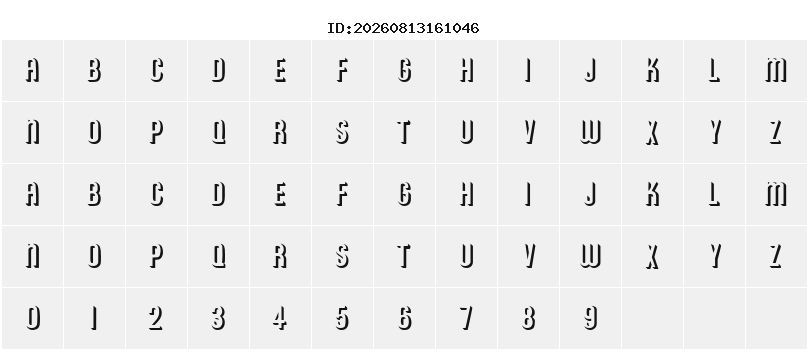
RONALD Preview
• Font Name: RONALD
• Full Font Name: RONALD Regular
About RONALD.ttf
RONALD.ttf is a modern, elegant sans-serif font designed for ultimate readability and visual harmony. Perfect for branding, headlines, web design, and print materials.